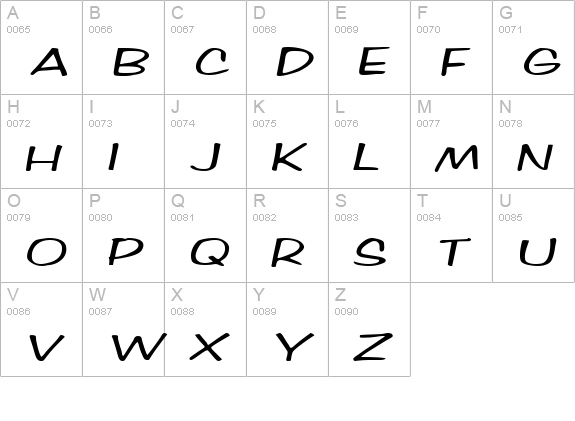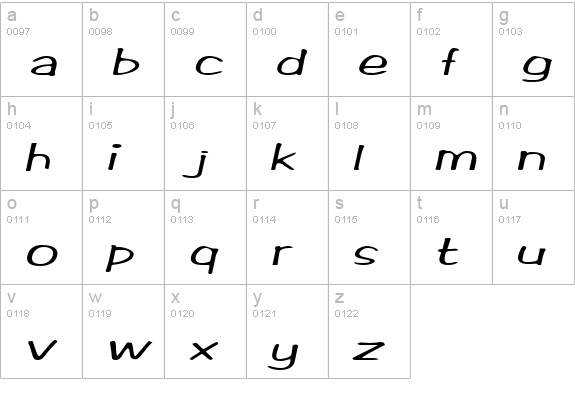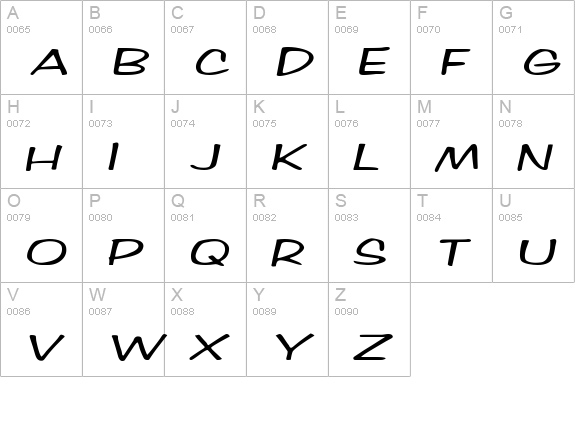
MarloExtended Bold Italic Font Details
MarloExtended Bold Italic is a strong, high-contrast, italic variant in the MarloExtended typeface family \xE2\x80\x94 well suited to headlines, attention-grabbing titles, and strong calls-to-action.
MarloExtended Bold Italic is a stunning and versatile font that effortlessly combines boldness and elegance. Its captivating curves and unique letterforms make it perfect for adding a touch of sophistication to any design project. This font exudes confidence and professionalism, making it an ideal choice for branding materials, logos, headlines, and editorial designs. Whether you are creating a sleek corporate presentation or designing a high-end fashion magazine, MarloExtended Bold Italic will instantly elevate your work to the next level. The boldness of this font is balanced by its italicized slant, adding a hint of drama and flair to your text. Each character is meticulously crafted, presenting a seamless blend of sharp edges and smooth curves that create a harmonious visual display. MarloExtended Bold Italic is not just visually striking; it is also highly legible, ensuring maximum readability even at smaller sizes. This makes it an excellent choice for both print and digital media, allowing your message to be conveyed effortlessly. The best part? MarloExtended Bold Italic is available for free! You can easily download this remarkable font at FontsMarket.com, a renowned platform for font enthusiasts. Embrace the creativity and elegance that MarloExtended Bold Italic brings to your designs, and watch as your projects come to life with a touch of sophistication.